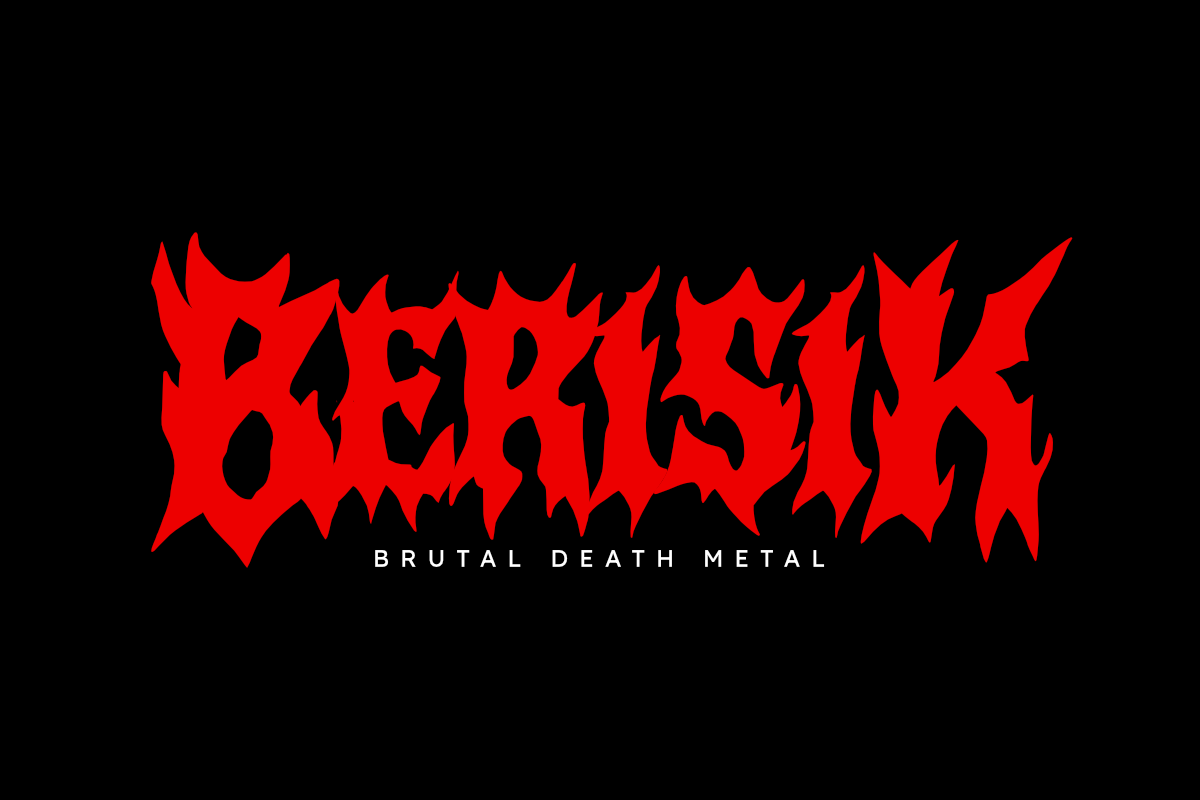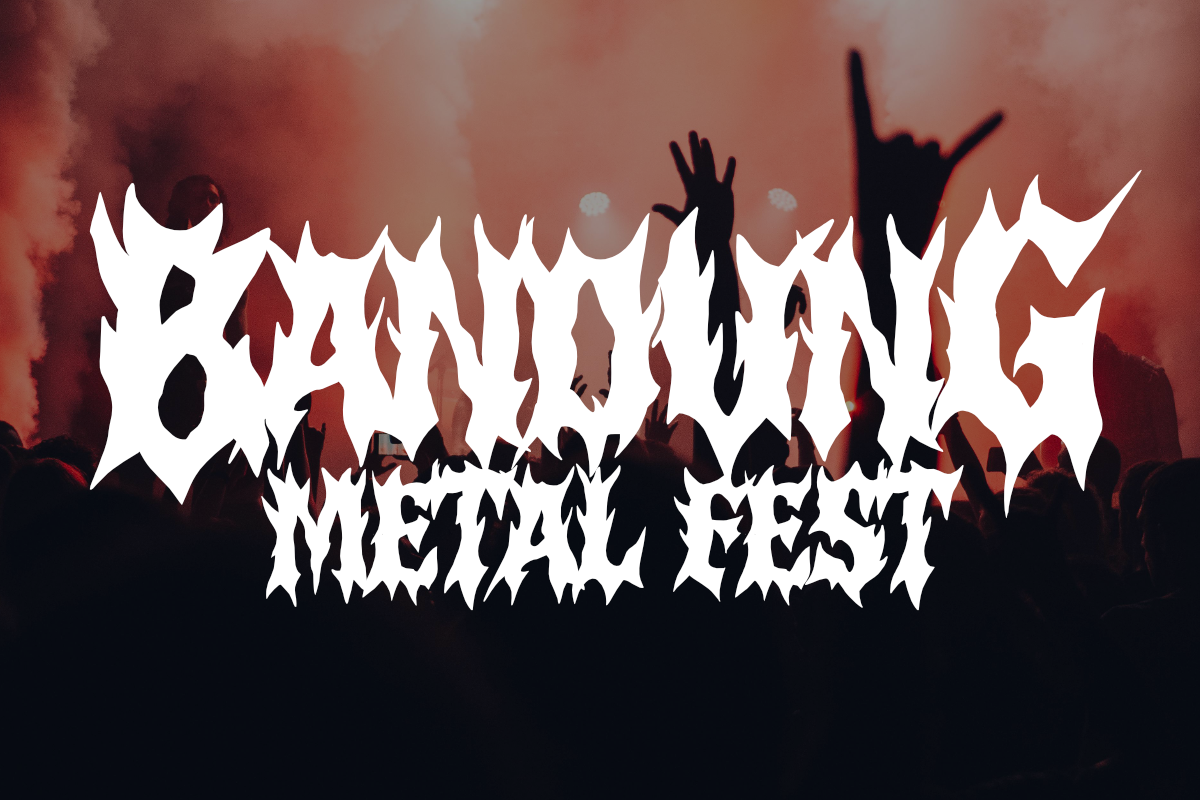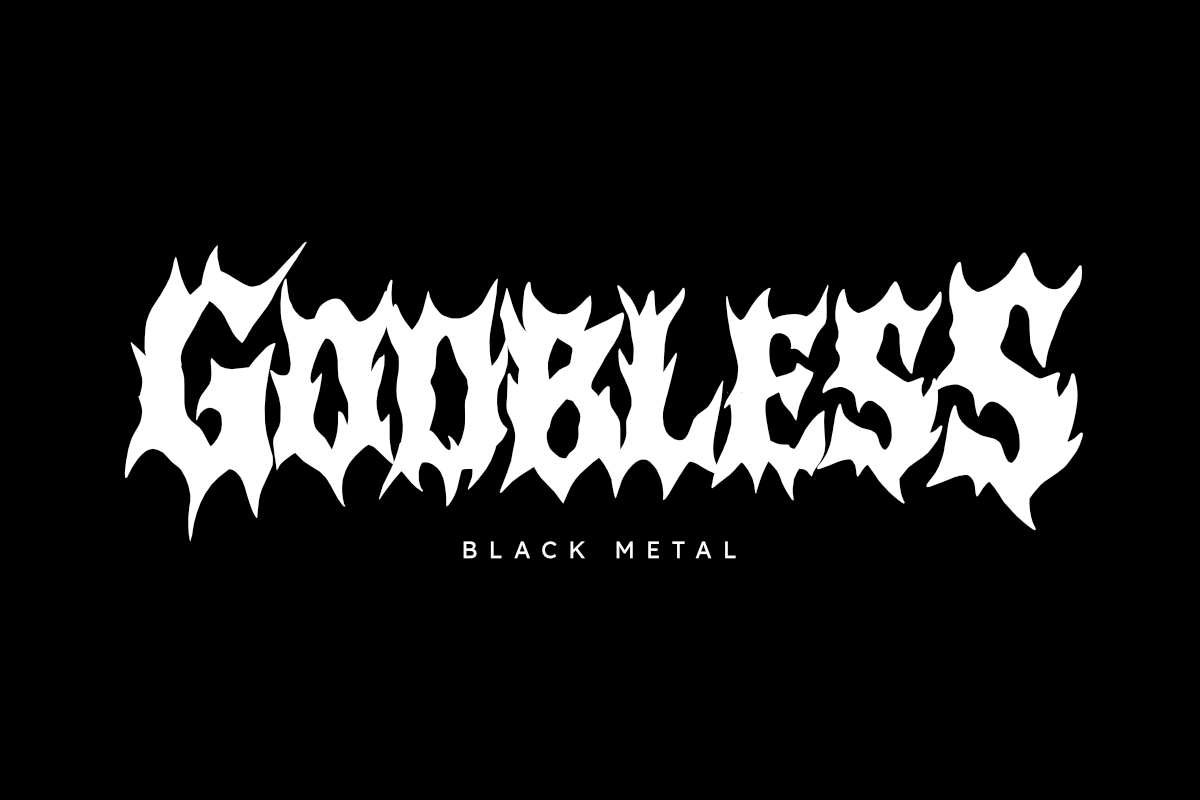
Sacred – Extreme Death/Black Metal
Sacred is a raw and wickedly sharp black metal font inspired by extreme underground music culture. With its aggressively spiked characters and brutal strokes, this font perfectly captures the dark, chaotic energy of black metal, death metal, and horror visuals.
Sacred is ideal for:
- Band Logos (black/death metal, hardcore, punk)
- Album Covers & Music Merch
- Horror Posters or Zines
- Tattoos & Streetwear Design
- Any design that dares to be unholy and intense
- All Uppercase A–Z
- Numbers & Basic Punctuation
This is not your average typeface – Sacred is for the bold, the raw, and the dark-hearted.